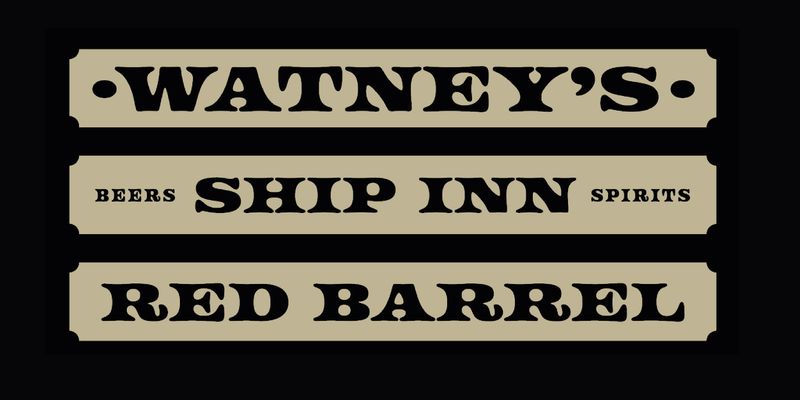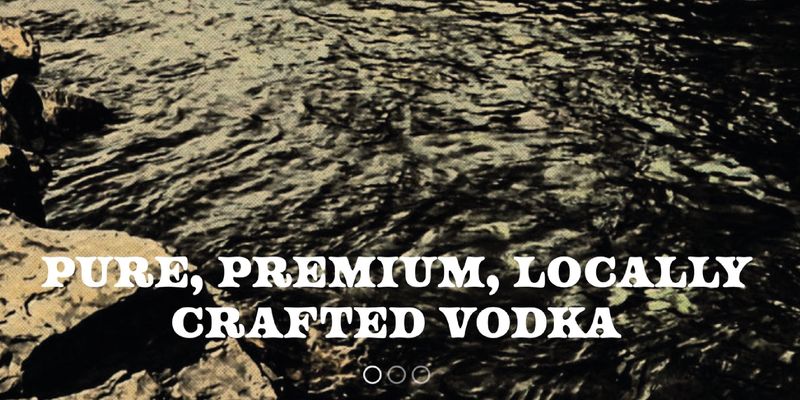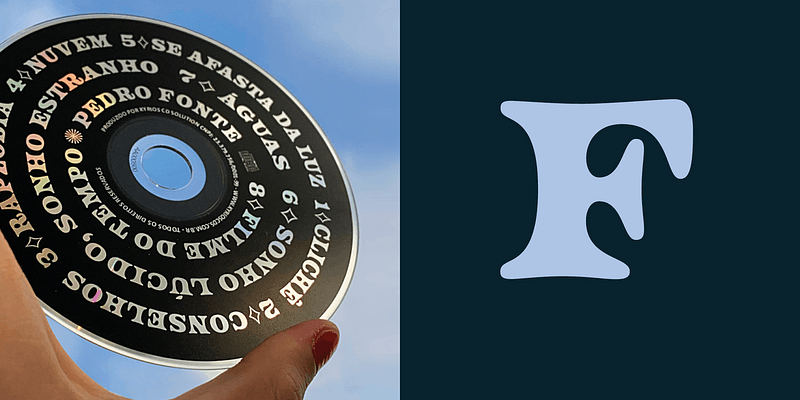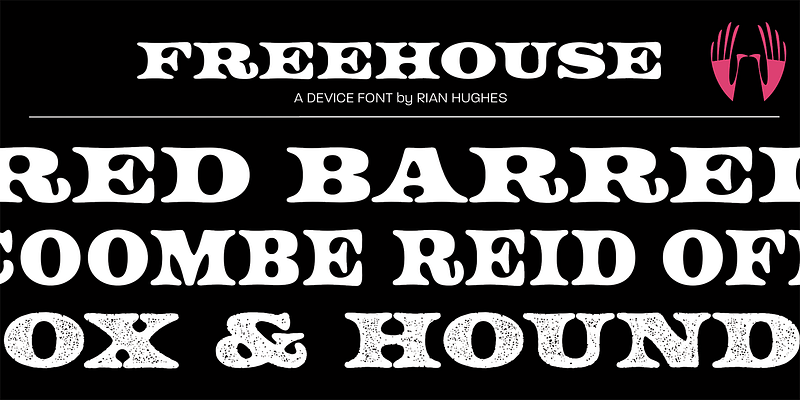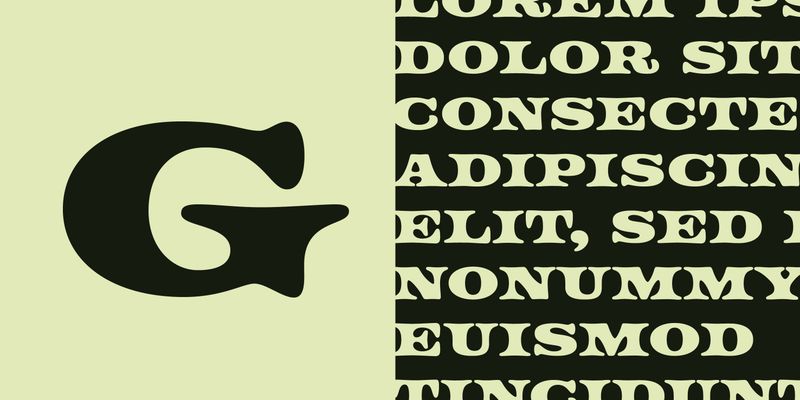
Freehouse
A wide, rounded serif that is impactful, readable and friendly.
Type, design and imagery by English illustrator and typographer Rian Hughes.